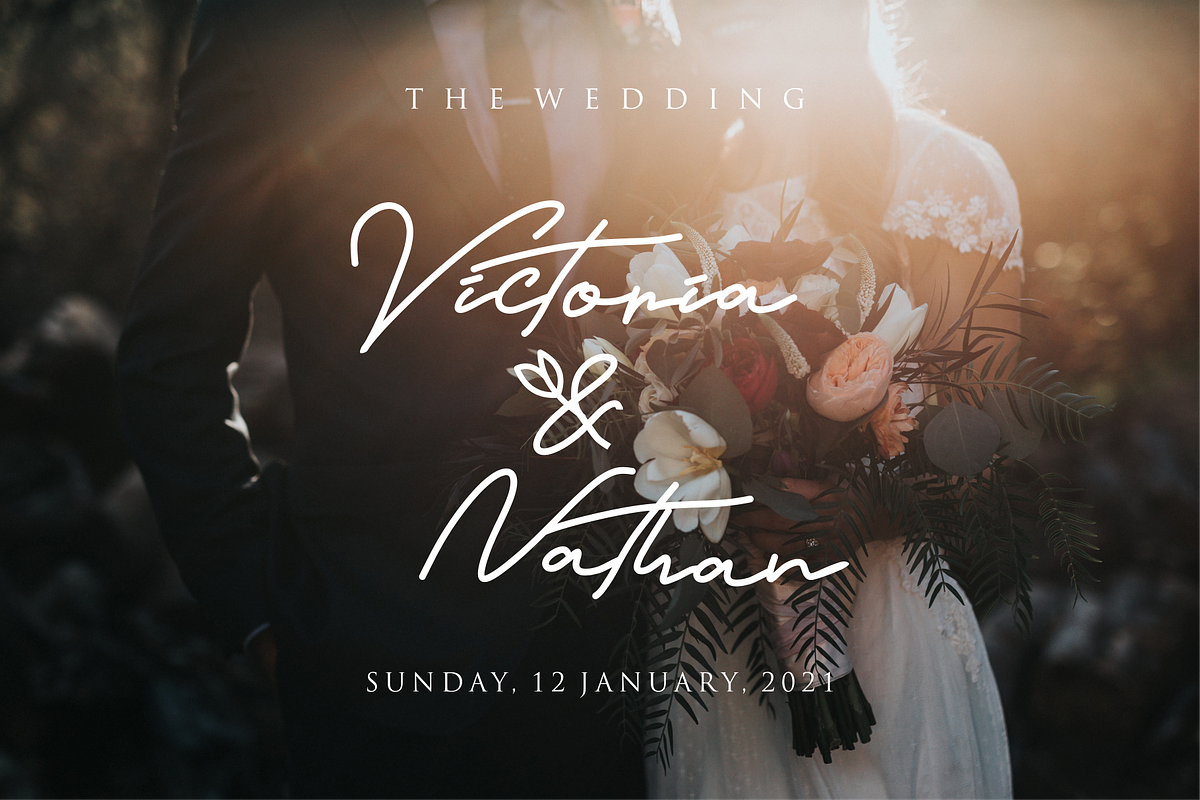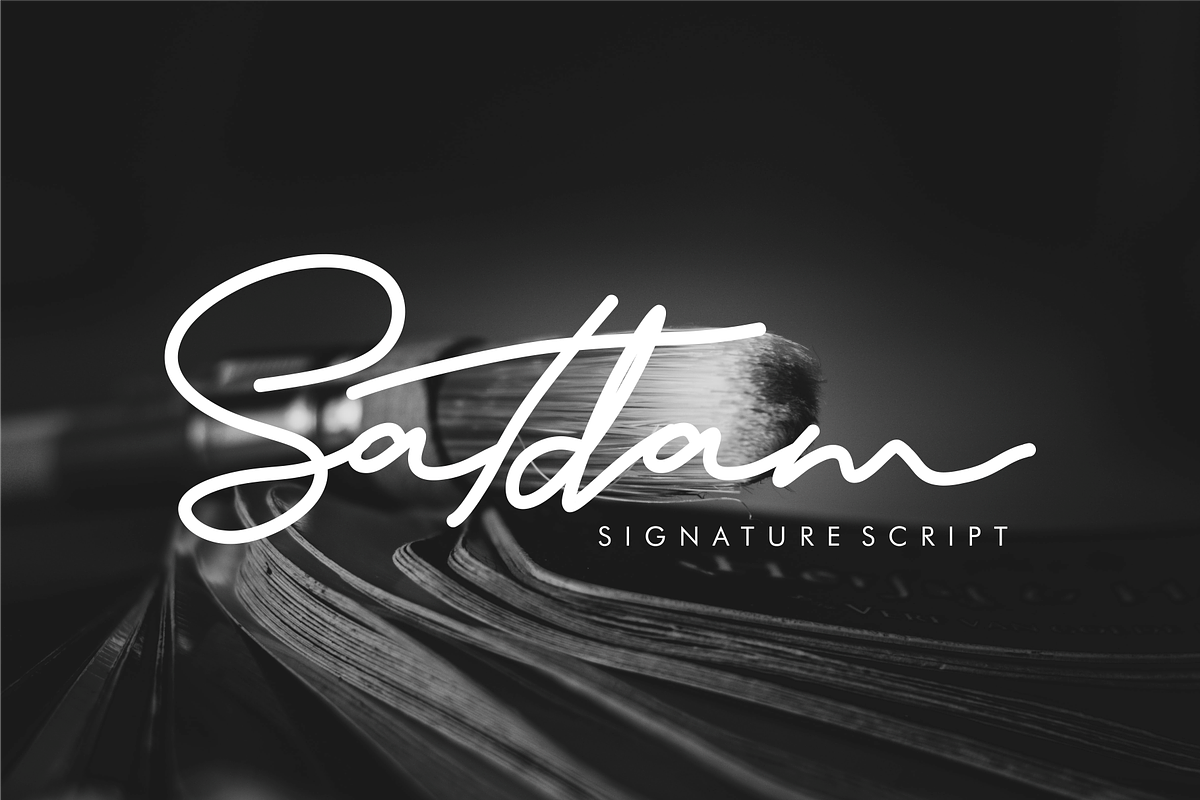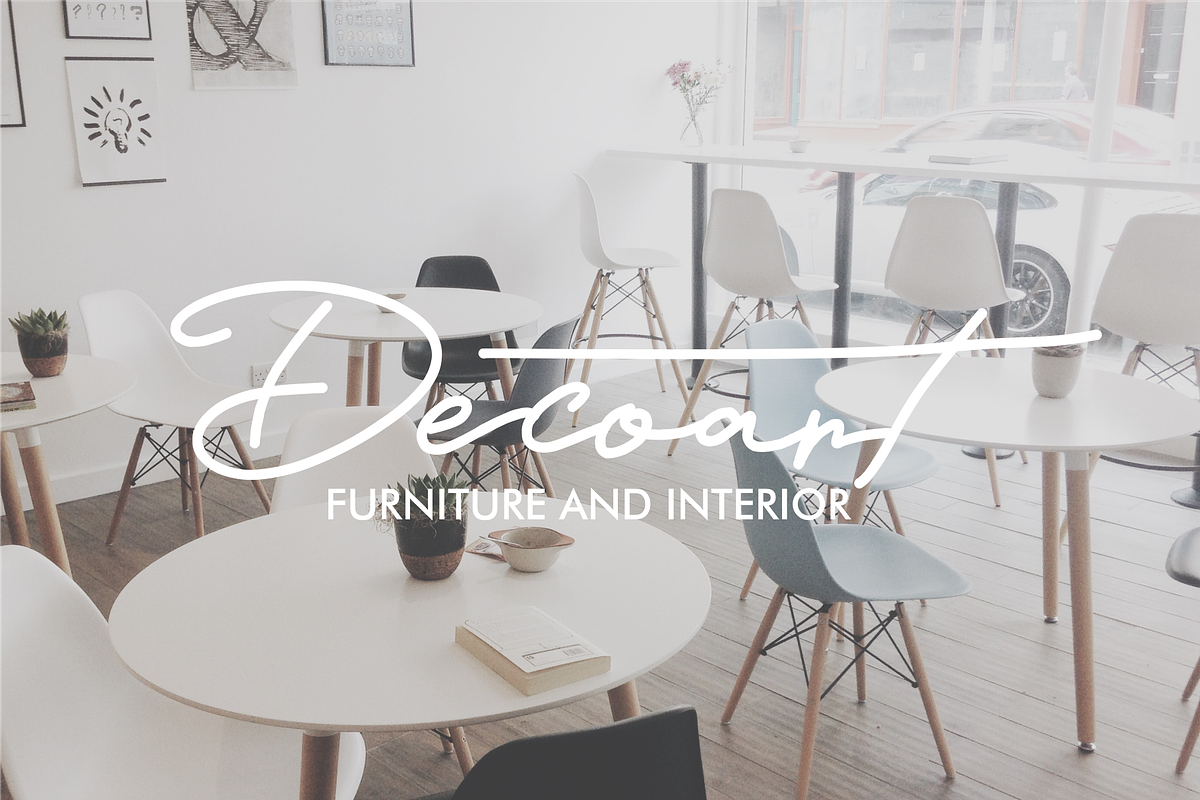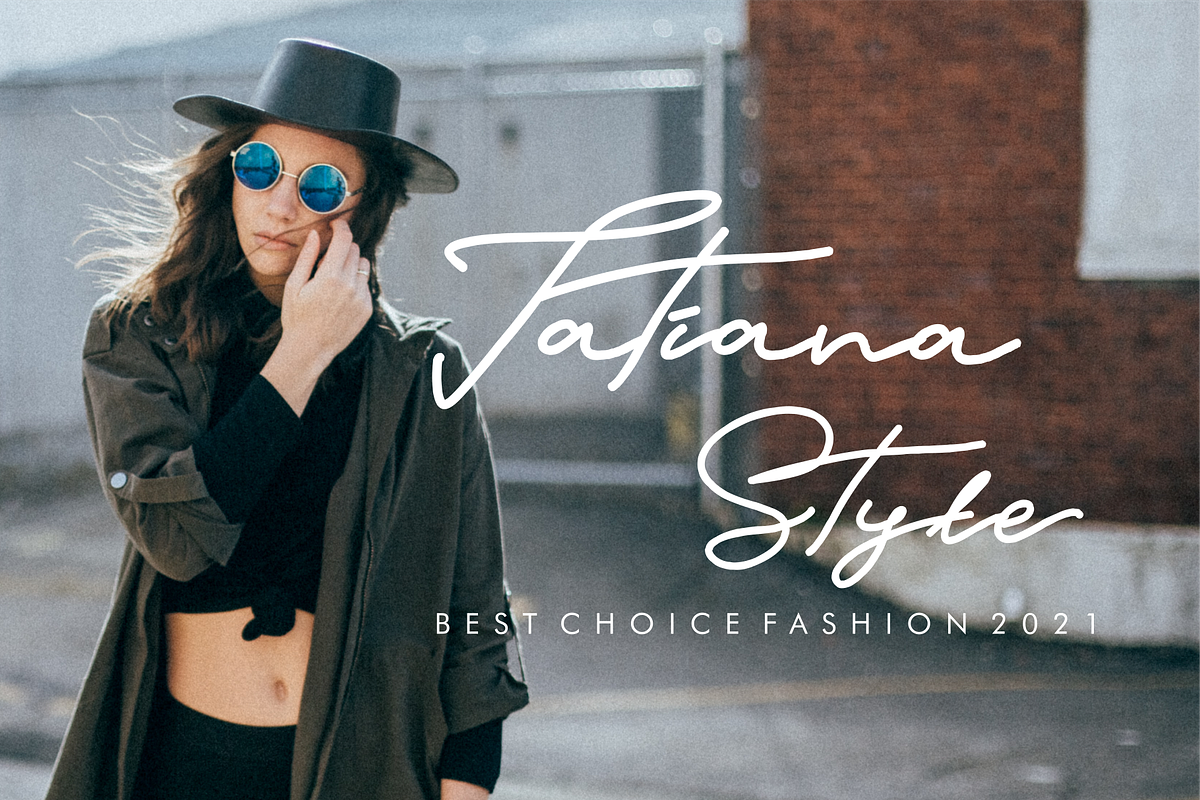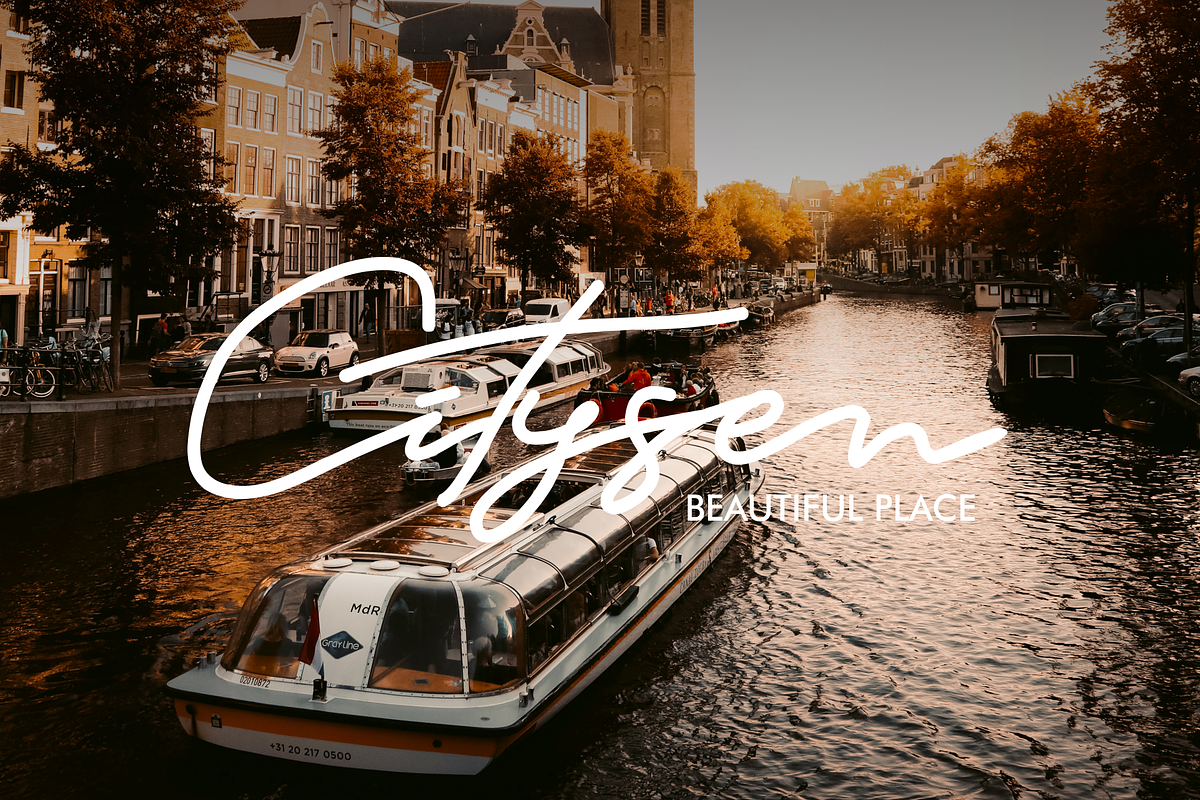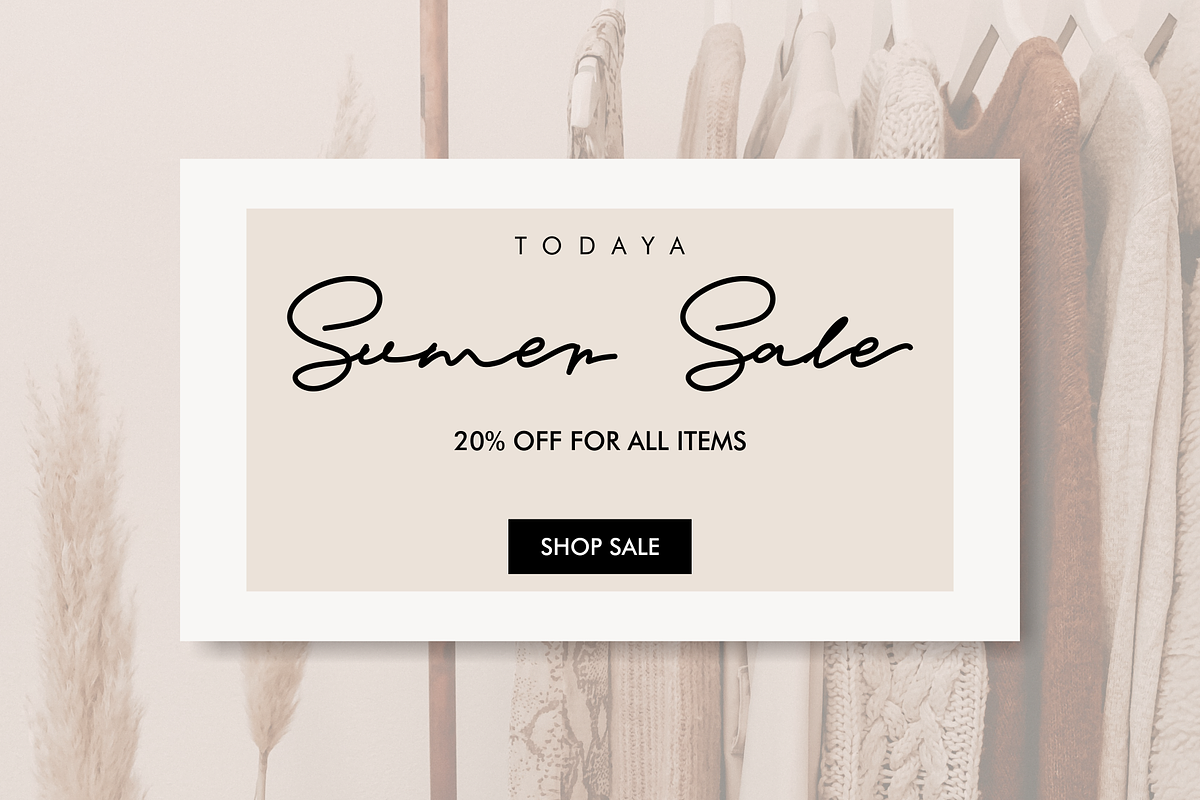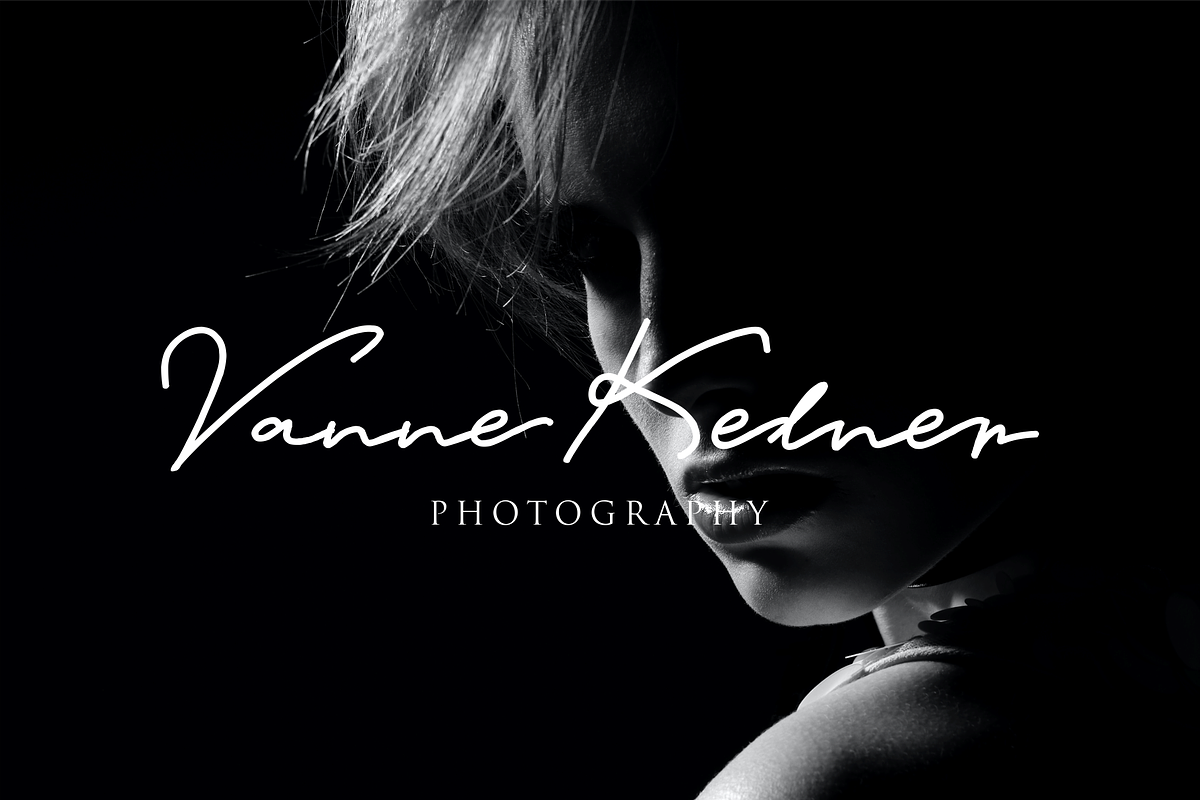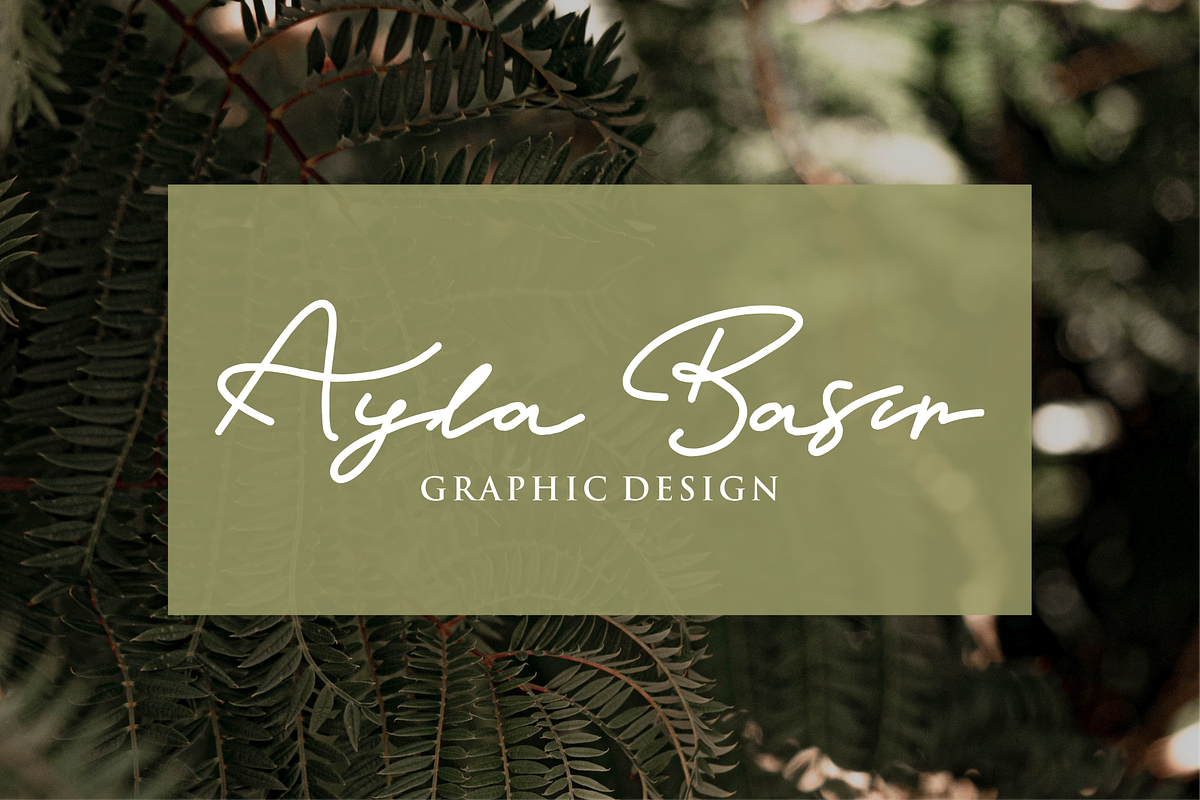
Satdam - Signature Script
SATDAM SIGNATURE SCRIPT is a font I created for the first time in 2021
I make this font suitable for branding, signature, wedding invitations, promotion, product packaging, and other needs. This font is modern, simple, but still authentic. You will get full set of lowercase and uppercase letters, numerals and punctuation